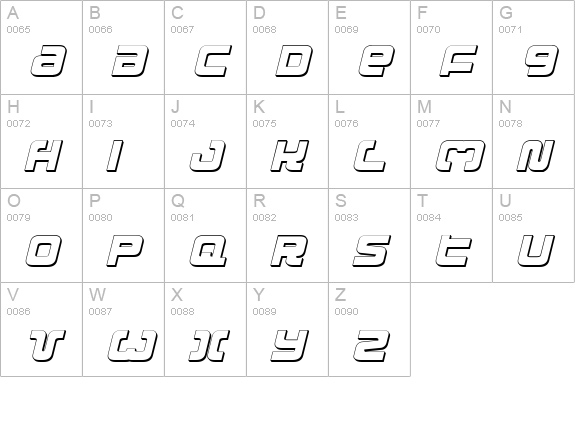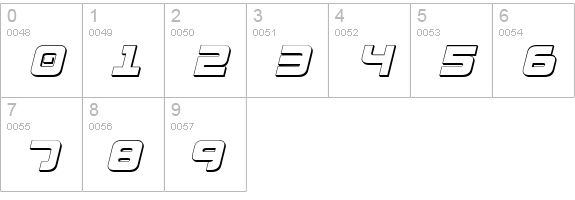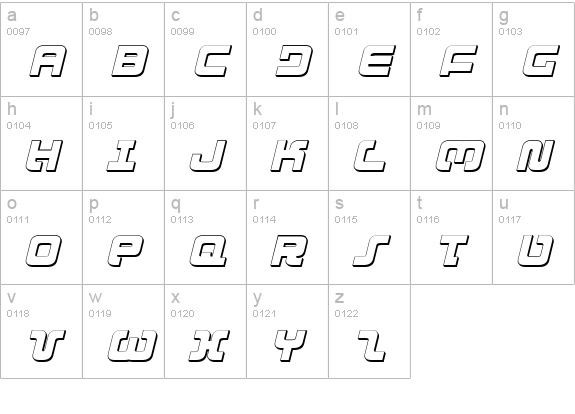
Exedore 3D Italic is a distinctive, italic variant in the Exedore typeface family \xE2\x80\x94 well suited to design and typography projects.
Exedore 3D Italic font is a stunning and modern typeface that adds depth and dimension to any design. Its italic style exudes elegance and sophistication, making it perfect for creating eye-catching headlines, logos, and branding materials. The unique 3D effect of this font gives your text a dynamic and dynamic look, making it stand out from the crowd. Best of all, Exedore 3D Italic font is available for free download at FontsMarket.com. This means you can easily access this high-quality font without breaking the bank. Whether you're a graphic designer, marketer, or simply someone looking to add a touch of flair to your projects, Exedore 3D Italic font is a fantastic choice. Download it today and elevate your designs to the next level!